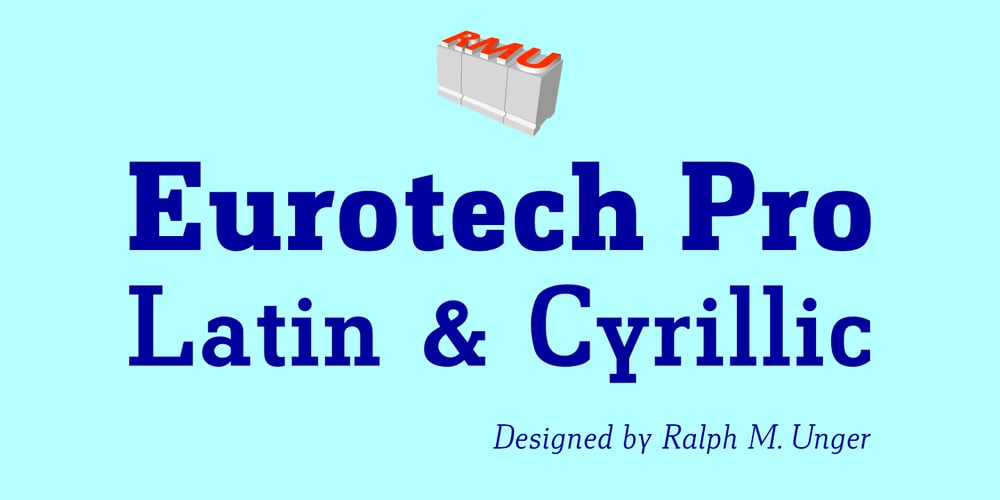
Eurotech Pro Font Family was designed by Ralph M. Unger and published by RMU. Eurotech Pro contains 5 styles and family package options. The design of Eurotech Pro was inspired by Thannhaeuser’s Technotyp font family which was cut by Typoart, Dresden, in 1949. Eurotech is not a mere revival of the old Typoart version but many letterforms have been updated and modernized. The Cyrillic letters are designed entirely by myself. Eurotech Pro is well suited for technical purposes, like catalogs, manuals or articles which are multilingual.